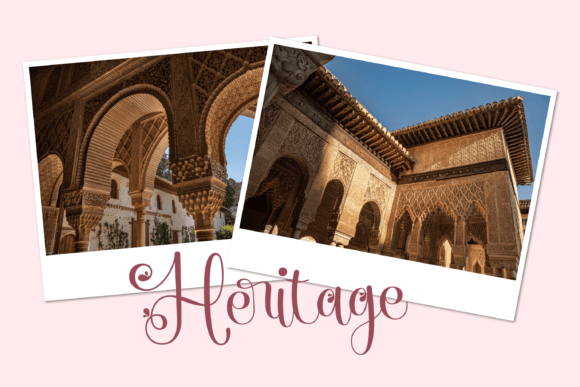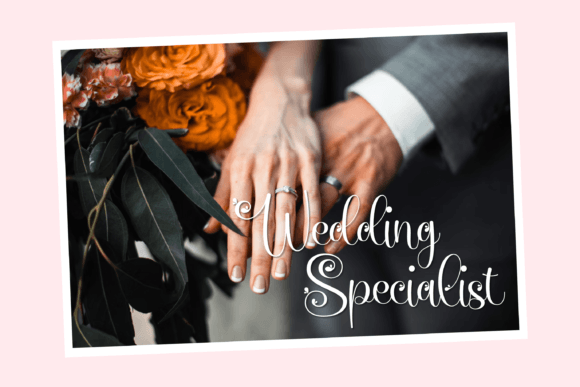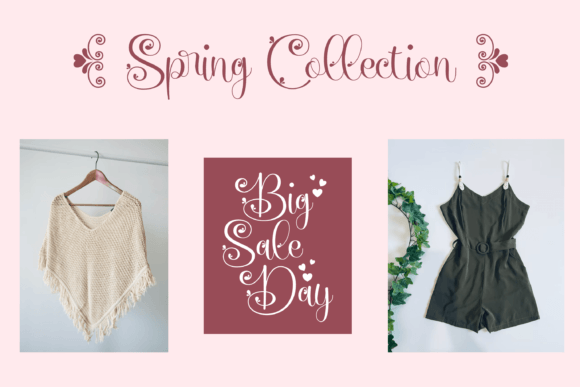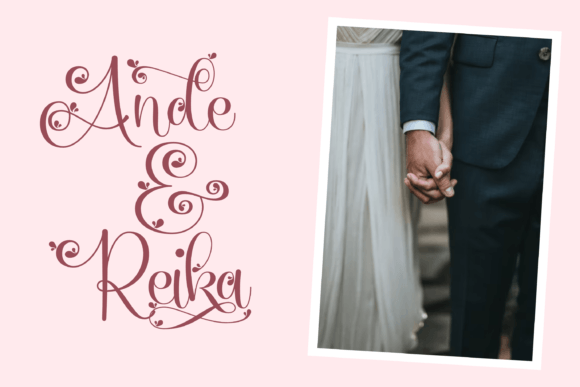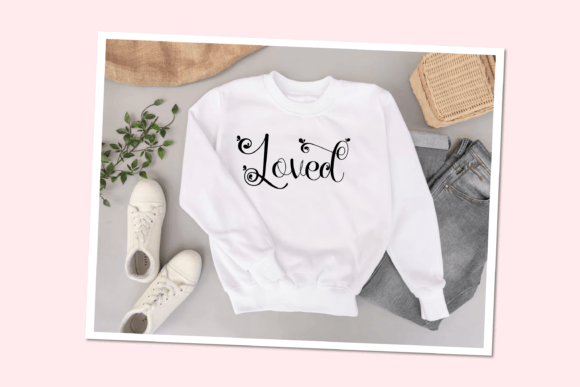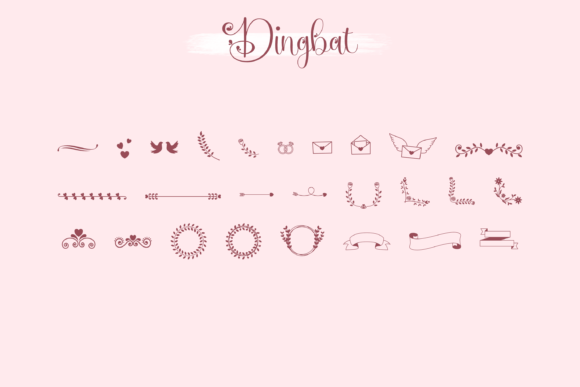
Introducing Berka Font: The Romantic and Sweet Calligraphy Typeface
Are you looking for a font that adds a touch of romance and sweetness to your design projects? Look no further than Berka Font, a beautiful calligraphy typeface that is sure to capture the hearts of designers and crafters alike. With its casual yet elegant touch, Berka Font is perfect for a wide range of projects, from wedding invitations and posters to merchandise and more.
The Unique Charm of Berka Font
Berka Font is a romantic and sweet calligraphy typeface that stands out from the crowd with its unique charm. The characters in Berka Font dance along the baseline, creating a sense of movement and fluidity that adds a touch of whimsy to any design. The font’s casual yet elegant touch makes it perfect for designers who want to add a personal touch to their work.
What Makes Berka Font Special?
So, what makes Berka Font special? For starters, it has a PUA (Private Use Area) encoding, which means that you can access all of the glyphs and swashes with ease. This makes it easy to customize your designs and add your own personal touch. Additionally, Berka Font is highly versatile and can be used for a wide range of projects, from digital designs to print materials.
Perfect for Wedding Invitations and More
Berka Font is particularly well-suited for wedding invitations, thanks to its romantic and elegant feel. The font’s casual yet sophisticated touch makes it perfect for wedding stationery, including invitations, save-the-date cards, and thank-you notes. But Berka Font is not just limited to wedding invitations – it’s also great for a wide range of other projects, including:
- Merchandise, such as t-shirts and mugs
- Digital designs, such as social media graphics and blog headers
- Print materials, such as brochures and business cards
Why Designers and Crafters Love Berka Font
Designers and crafters love Berka Font for many reasons. Here are just a few:
- Ease of use: Berka Font is easy to use, even for designers who are new to calligraphy fonts. The PUA encoding makes it simple to access all of the glyphs and swashes.
- Versatility: Berka Font is highly versatile and can be used for a wide range of projects.
- Unique charm: Berka Font has a unique charm that sets it apart from other calligraphy fonts.
- Elegant feel: Berka Font has an elegant feel that makes it perfect for wedding invitations and other formal designs.
Tips for Using Berka Font
Here are a few tips for using Berka Font in your designs:
- Experiment with different sizes: Berka Font looks great in a variety of sizes, from large headings to smaller body text.
- Play with glyphs and swashes: Berka Font has a range of glyphs and swashes that you can use to add a personal touch to your designs.
- Pair with other fonts: Berka Font pairs well with a range of other fonts, including serif and sans-serif fonts.
| Font Name | Berka Font |
| Author | Toko Laris Djaja |
In conclusion, Berka Font is a romantic and sweet calligraphy typeface that is perfect for designers and crafters who want to add a touch of elegance and whimsy to their designs. With its casual yet elegant touch, Berka Font is highly versatile and can be used for a wide range of projects. Whether you’re designing wedding invitations, posters, or merchandise, Berka Font is sure to become a favorite in your font collection.